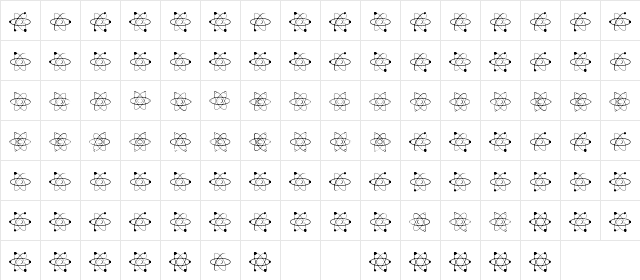
Complete AtomBraille Regular glyph index. Displaying only characters natively supported by AtomBraille Regular font.
AtomBraille is a composed and adaptable typeface that performs quietly and consistently across a wide range of design contexts.